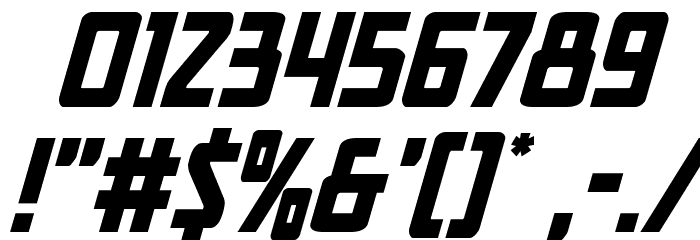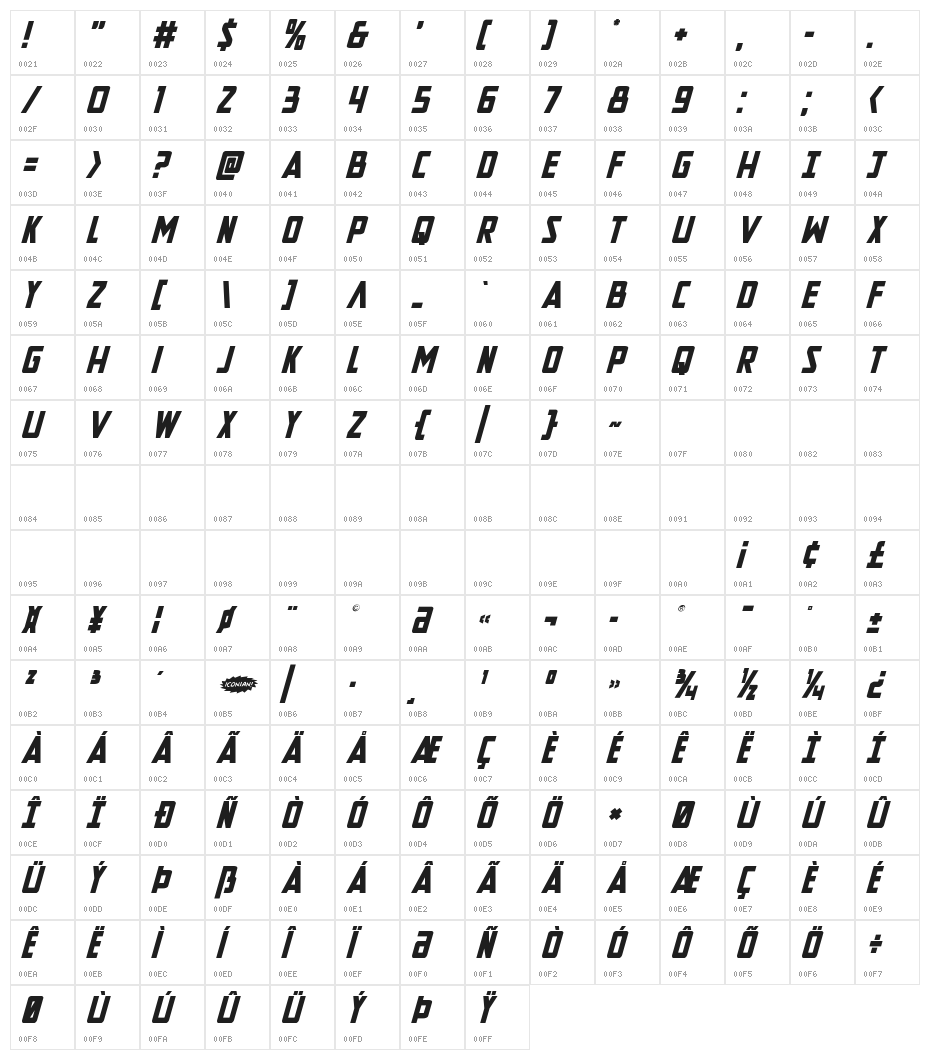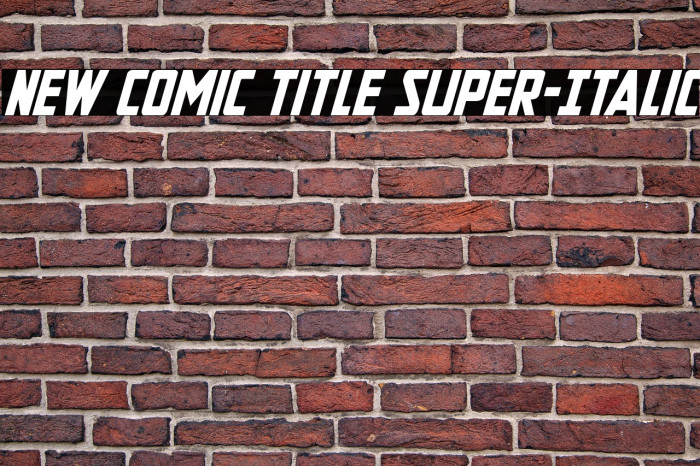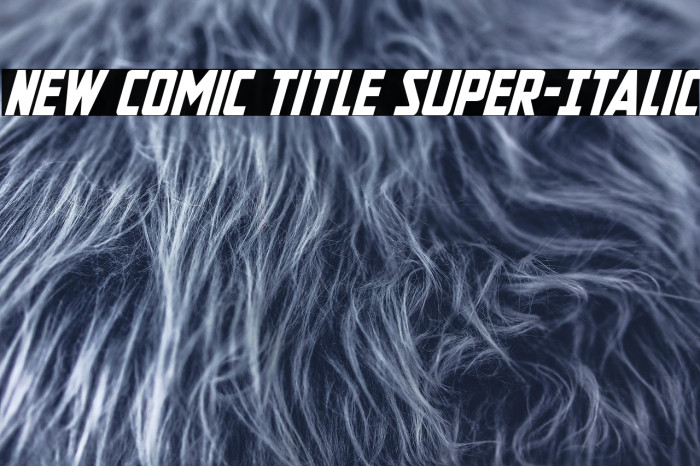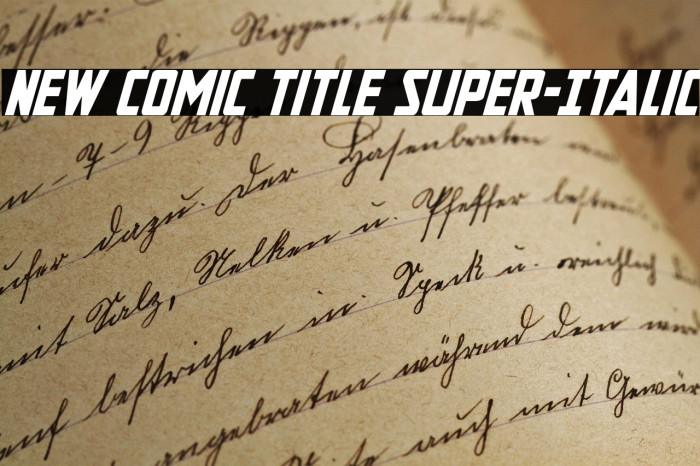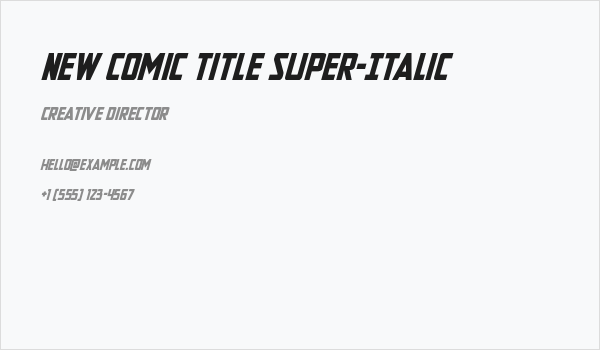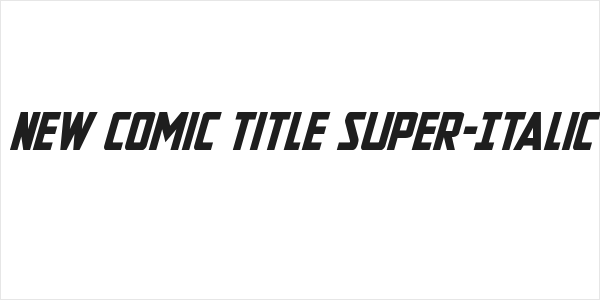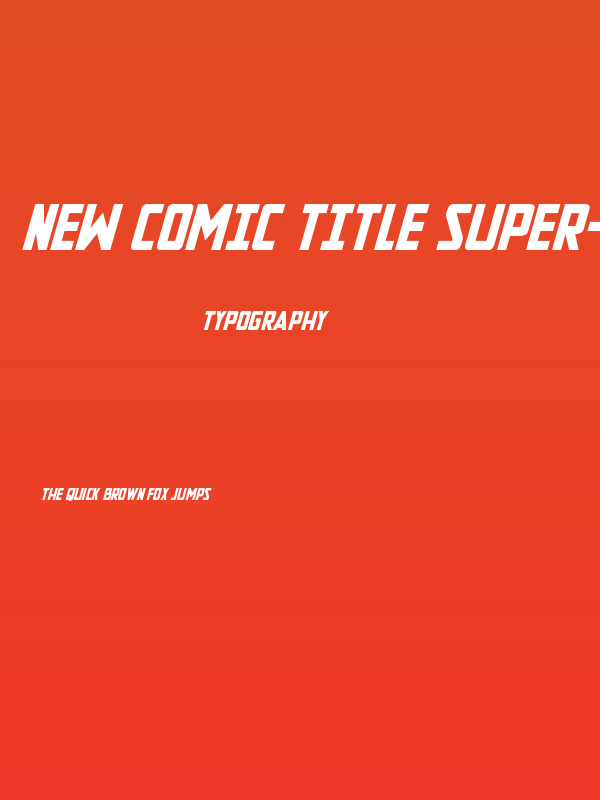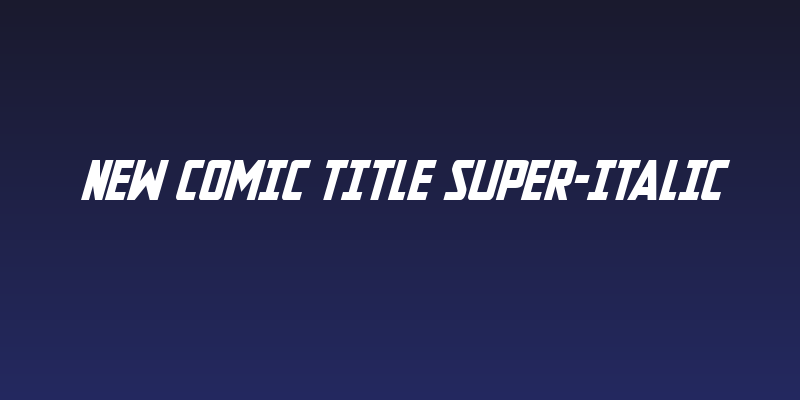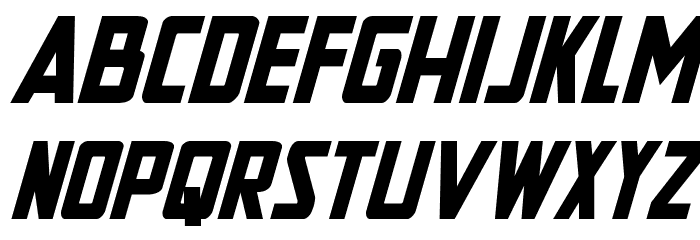
New Comic Title Super-Italic Font
New Comic Title Super-Italic Description
This font features a bold and dynamic style with a strong italic slant, giving it a sense of motion and energy. The characters are thick and robust, making them highly legible and impactful. The angular design of the letters adds a modern and edgy feel, suitable for attention-grabbing headlines or titles. The numbers and special characters maintain the same bold and italicized characteristics, ensuring consistency across all text elements. The overall design is clean and straightforward, with a slight futuristic touch.